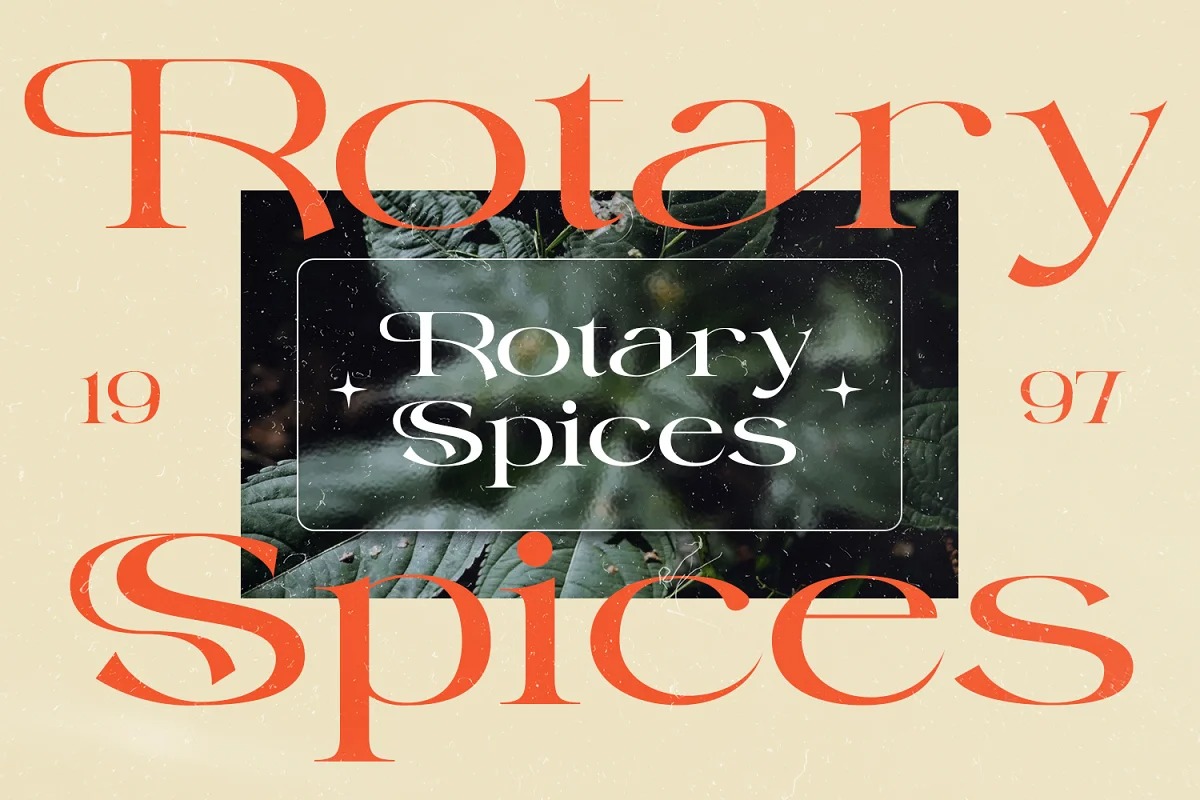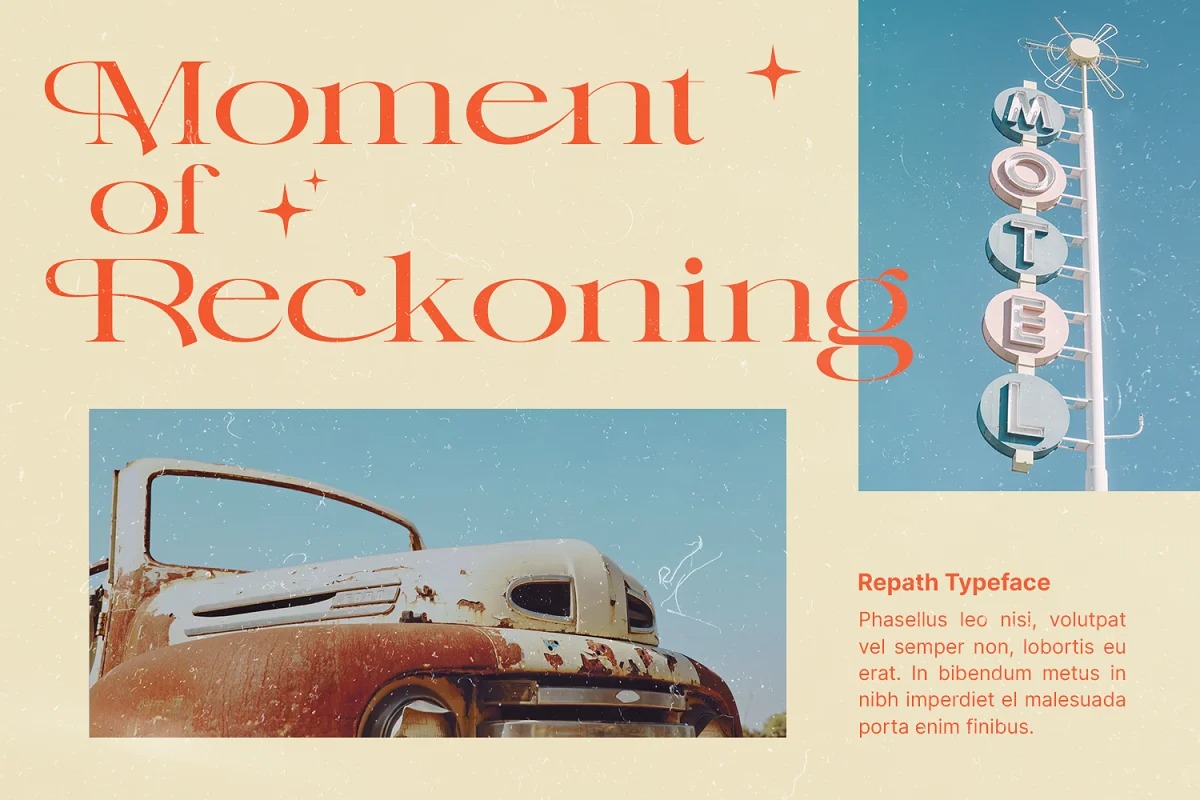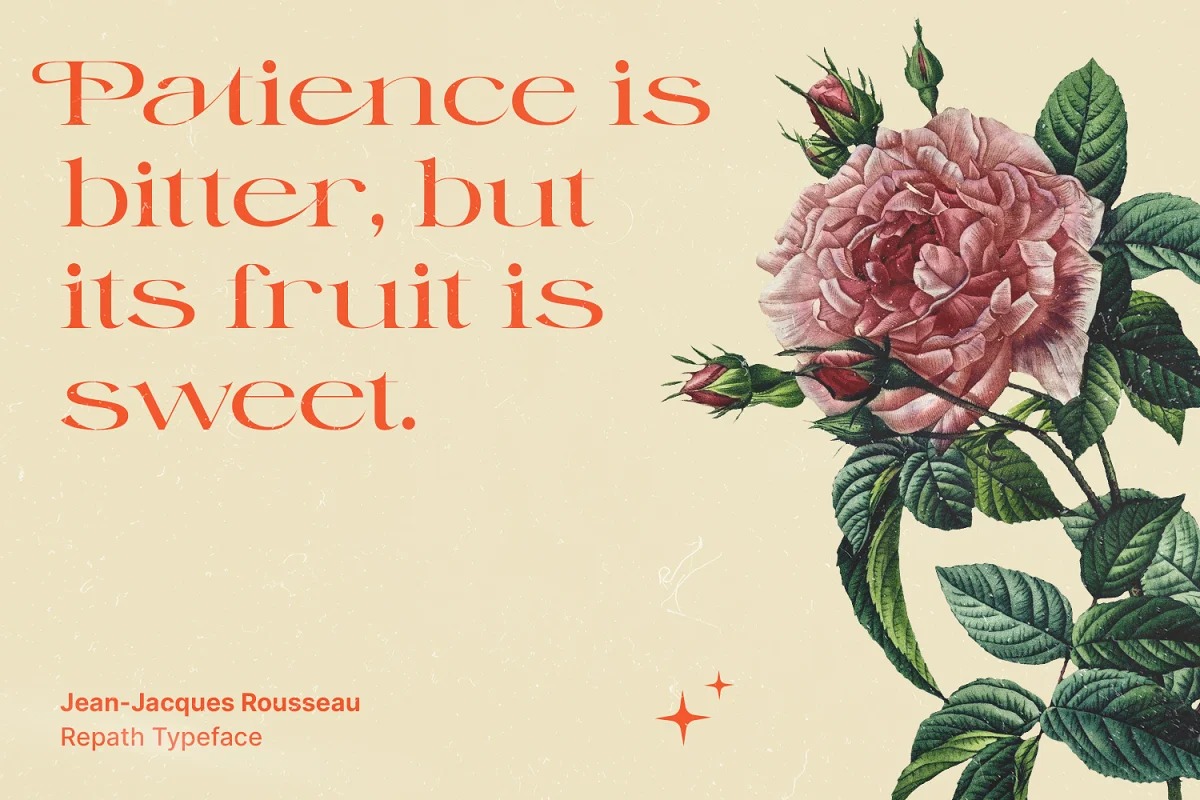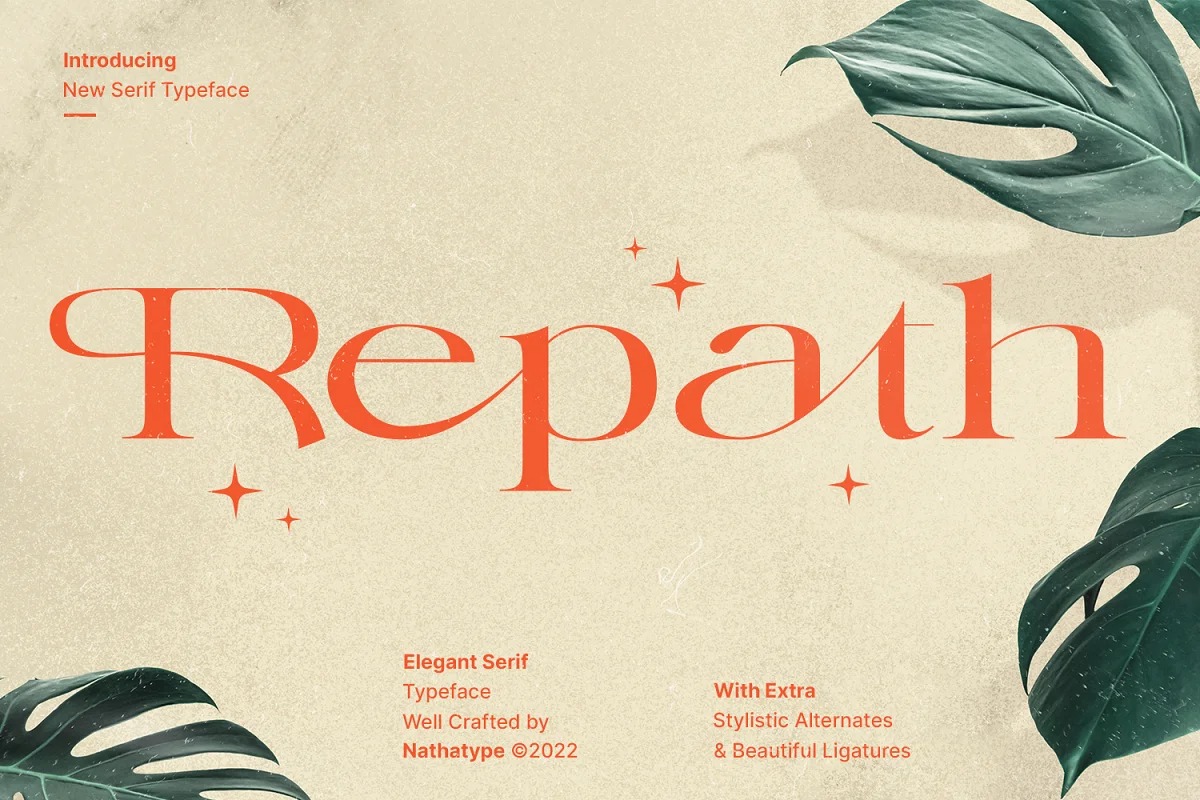
Repath Serif Font
This is a lovely classic serif Typeface from designer Din Studio. The mix of modern and vintage elements results in an elegant design. The weight of the font brings strength to any title or header you apply to it, On the other hand, the curves of the letters and numbers convey sense of elegance. As our commitment to support your brand globally recognized, we always come with multilingual options.